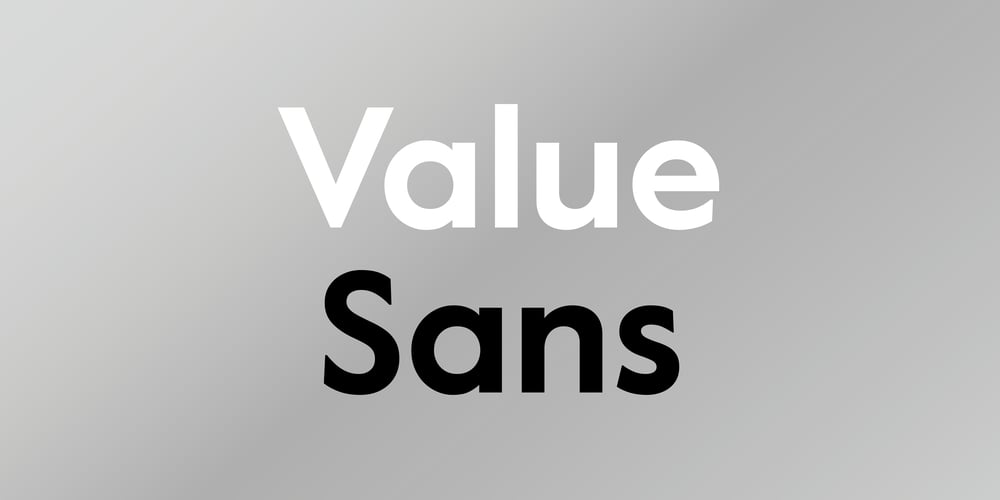
Value Sans Font Family was designed by Benjamin Critton, Colophon Foundry and published by Colophon Foundry. Value Sans contains 8 styles and family package options. Value is a contemporary family of two typefaces: Value Sans and Value Serif. Both derivatives were drawn in response to conversations centered around notions of cultural and fiscal exchange: Value Sans borrows style and behavior from precedents like Elegant Grotesk (DE) and Granby (UK); Value Serif pays homage to forebears like Plantin Infant (FR + US) and Italian Old Style (US).Value Sans was drawn first by Colophon Foundry (UK), while the Serif was drawn shortly after by designer Benjamin Critton (US). Each borrow their geometry from the other and the nuances of the two related typefaces were finalized by all parties and released under Colophon Foundry.Value Sans is now available in 4 weights — Regular, Medium, Bold & Black – with corresponding Italics. It is available to license in both Standard (‘STD’) and Professional (‘PRO’) versions, the latter containing additional Latin language support, Cyrillic and Greek scripts, OpenType features and copious stylistic alternates.